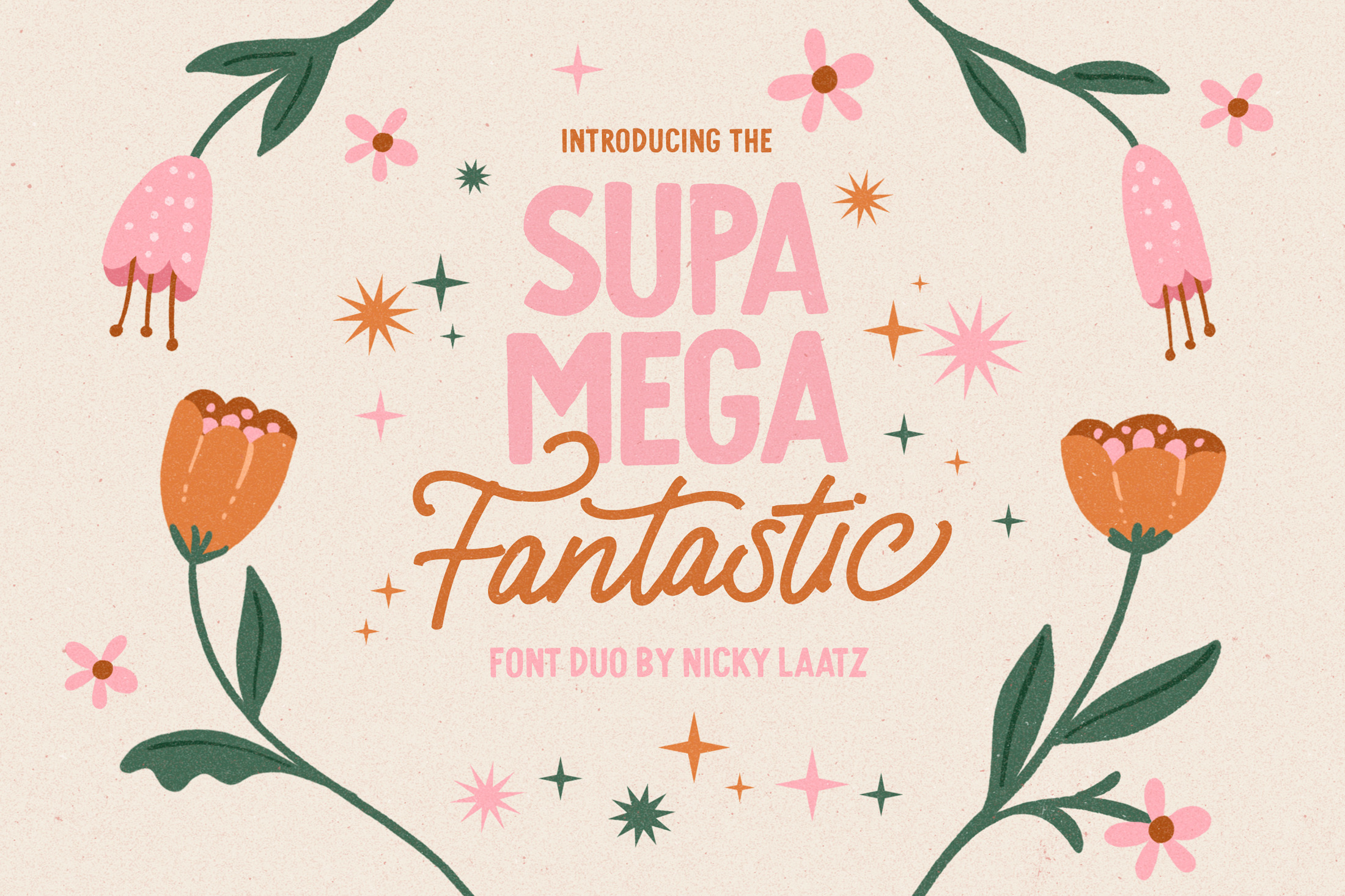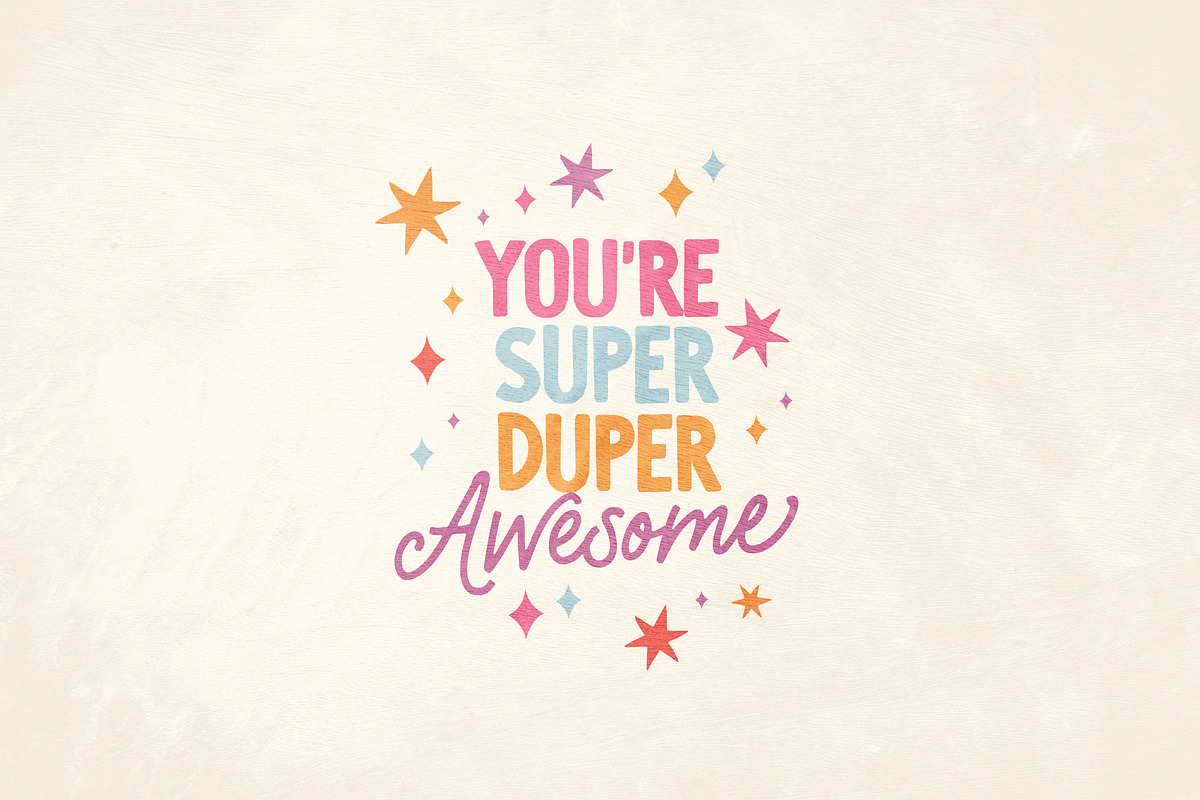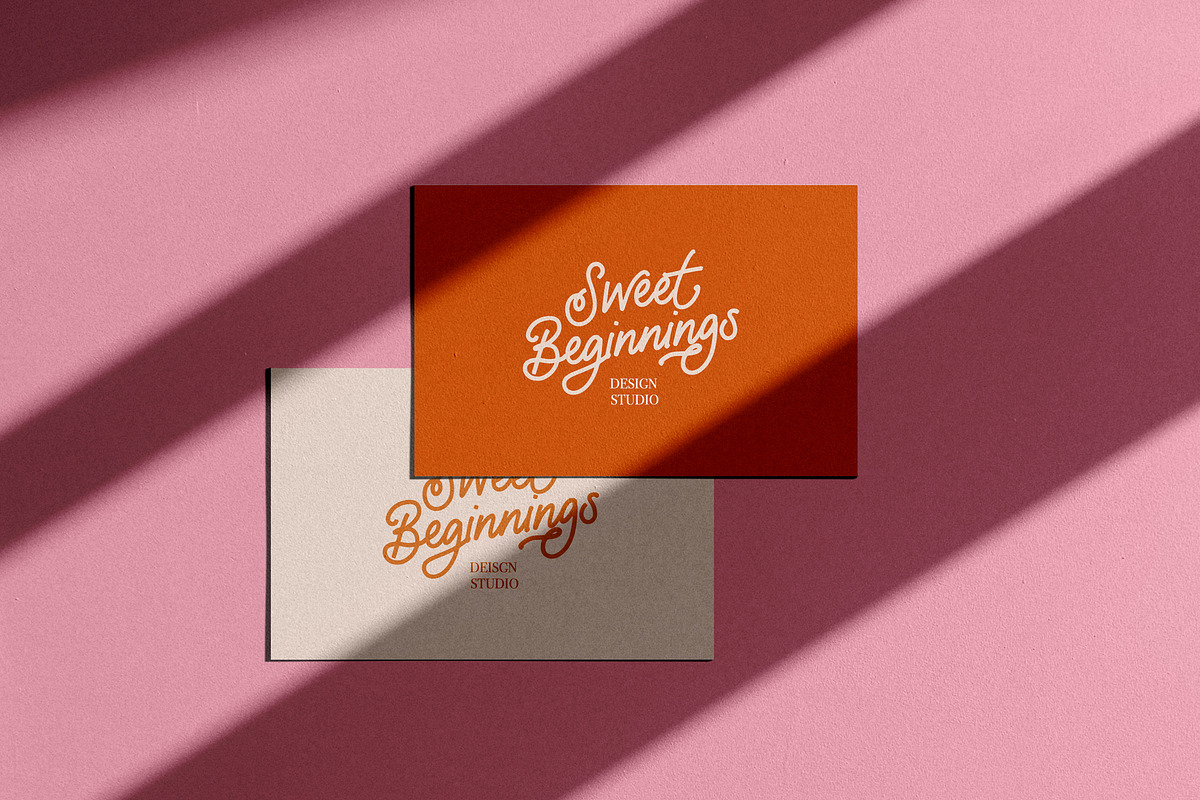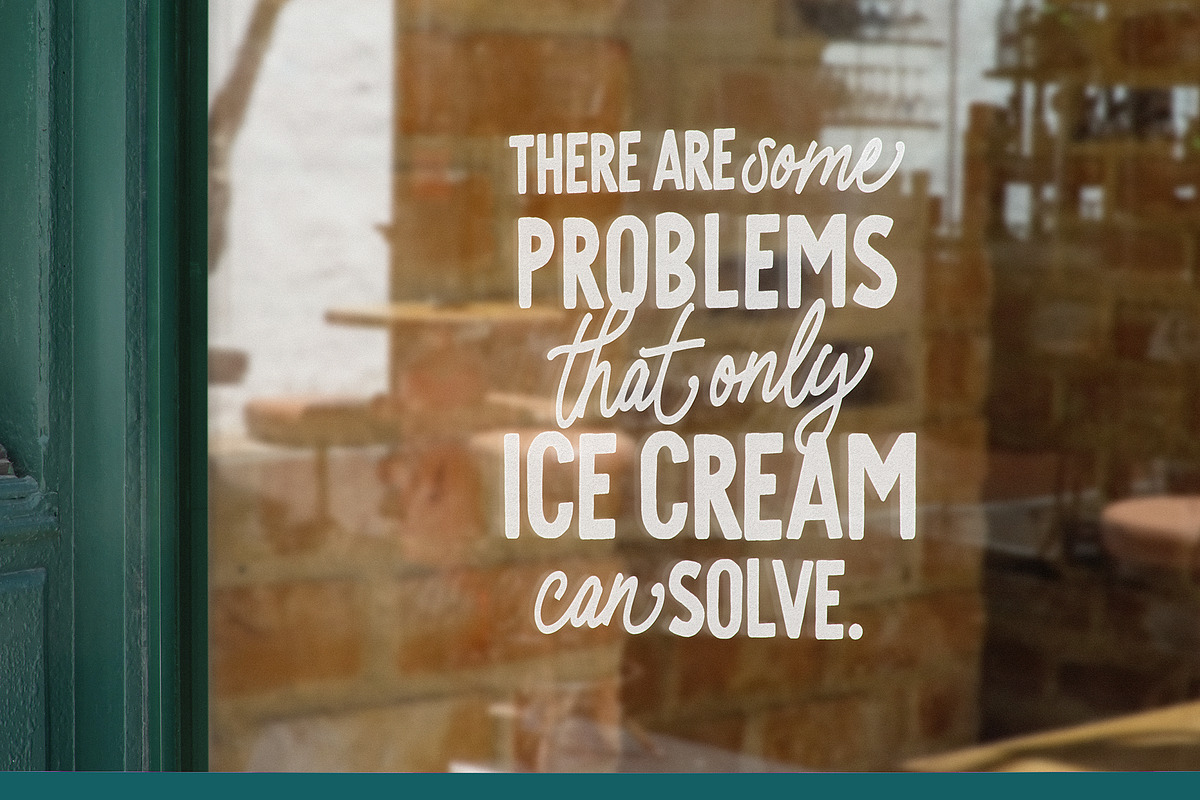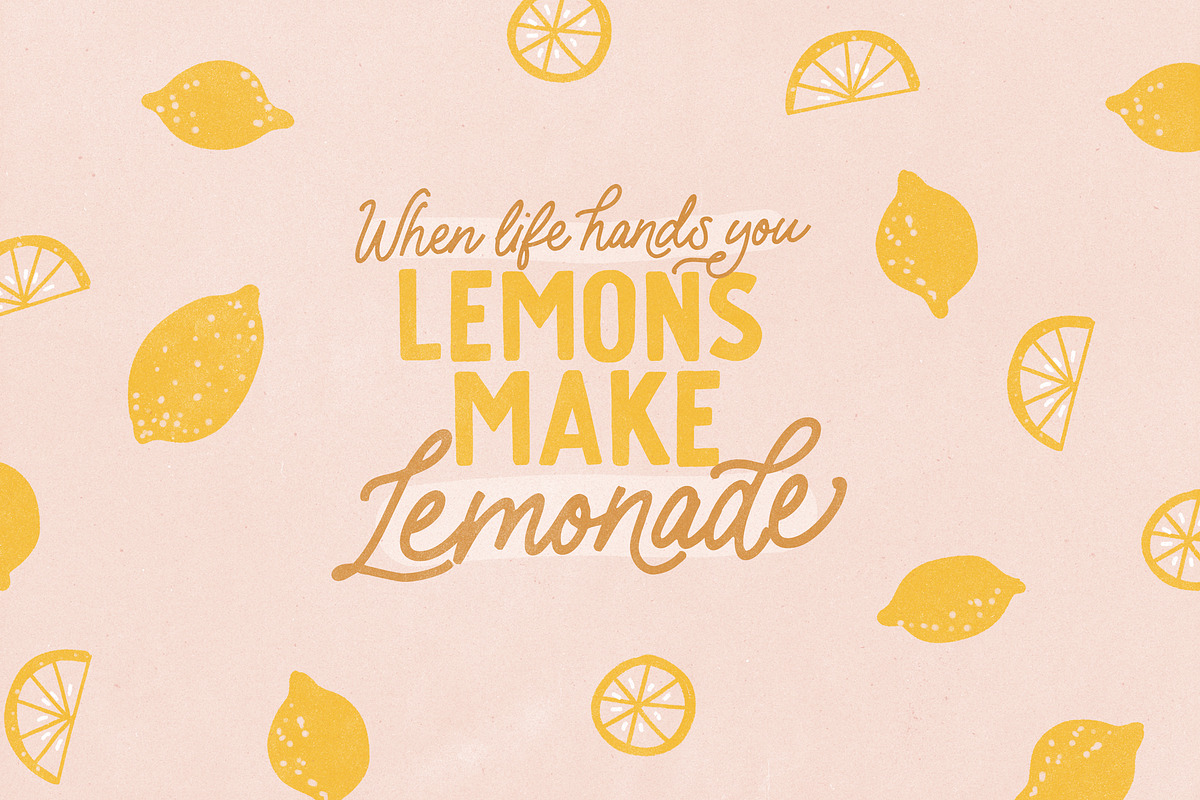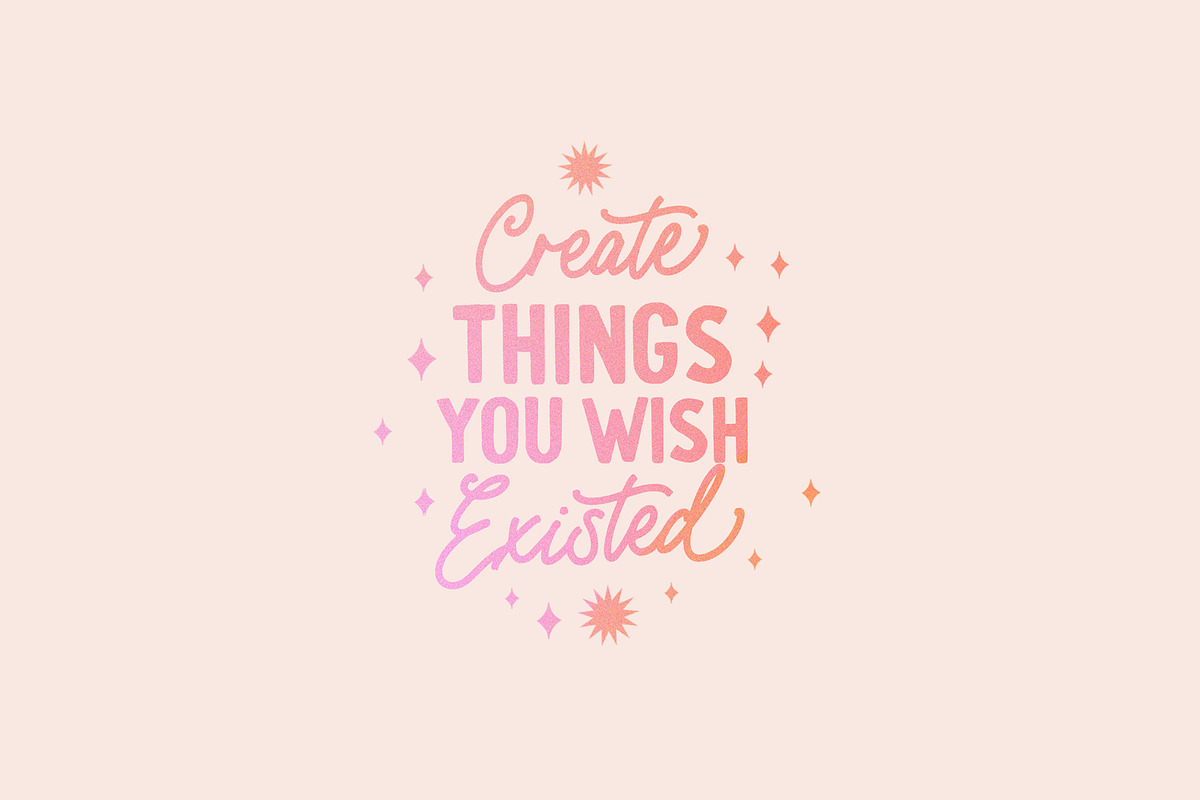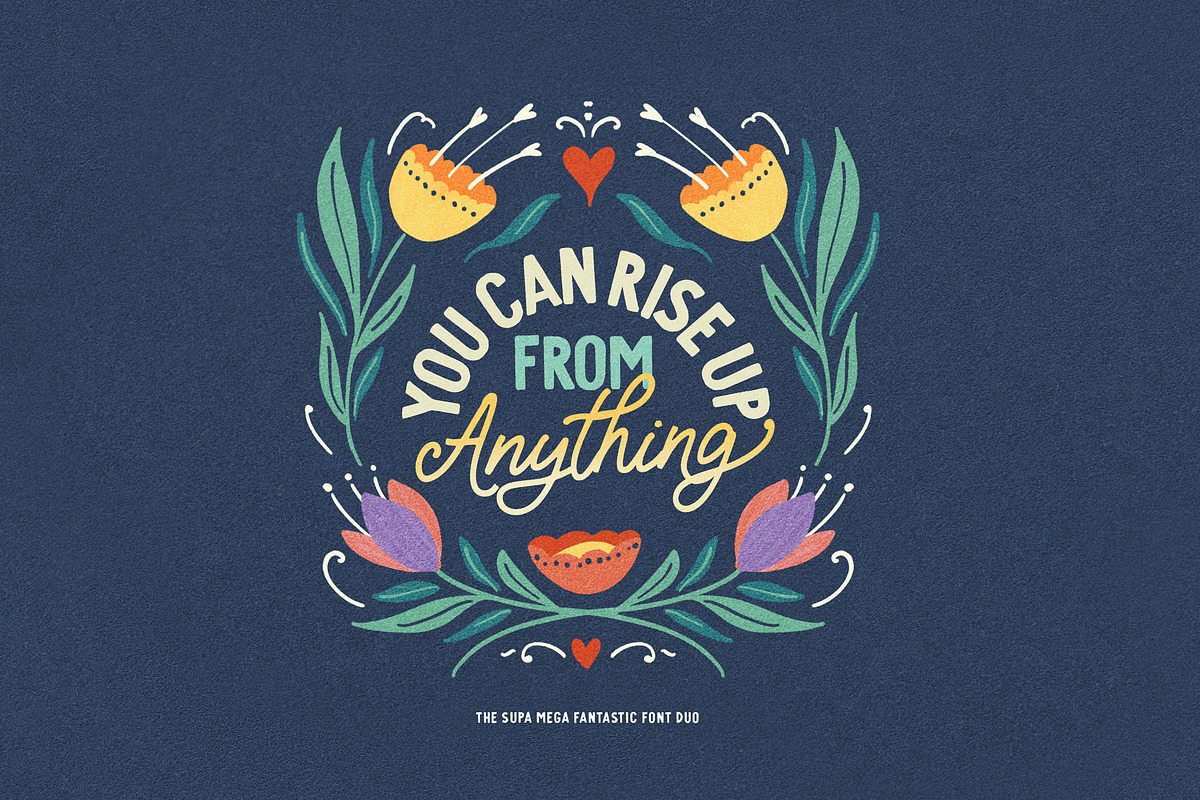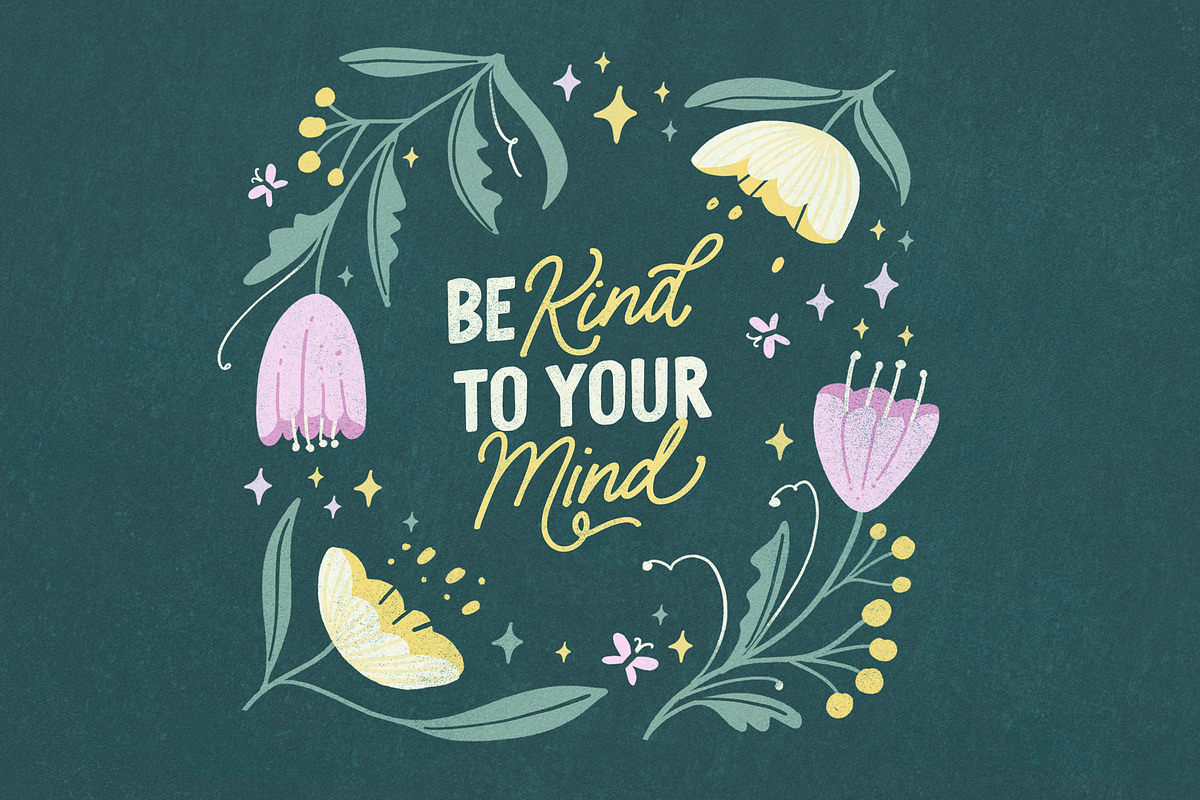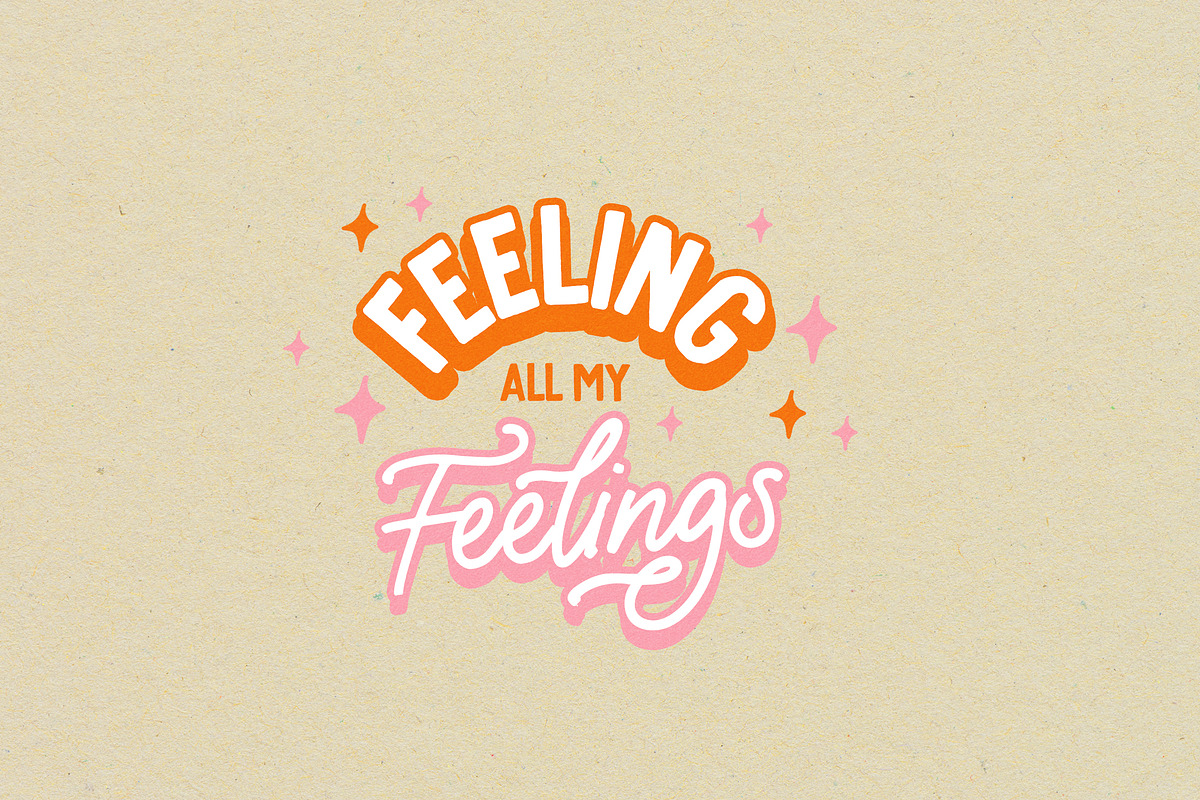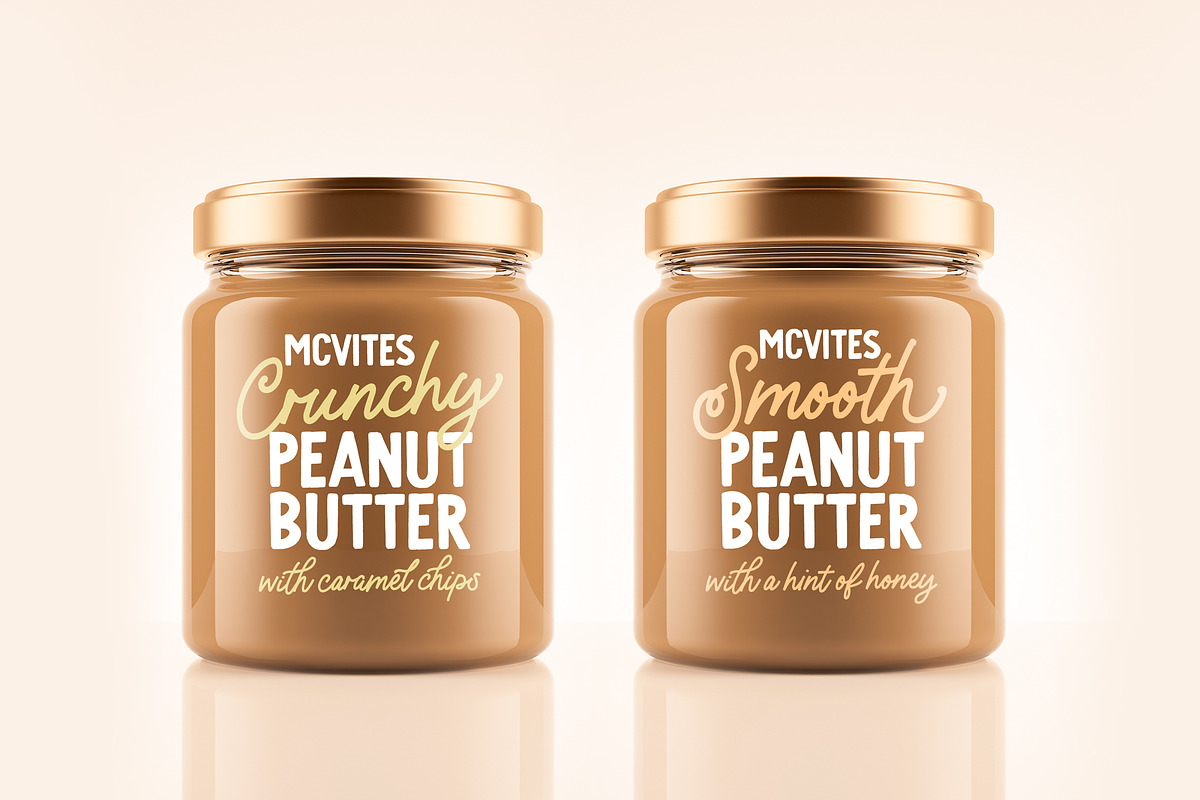
Supa Mega Fantastic Font Duo
Say hello to the Supa Mega Fantastic Font Duo! A sweet little duo of hand lettered sign-painter style fonts. A playful monoline script and a chunky all caps sans serif.
Choc-a-block with alternates! The Supa Mega Fantastic Script comes with a multitude of Opentype alternate characters, to add a fancy flair to your words if you need them! Have it plain, or fancy schmancy :)
All uppercase characters have a fancy alternate, and all lowercase letters have a selection of alternates for you to select from to suit your wording best.
The Script comes in two variants - Regular and slightly thinner. The slightly thinner version is best suited to lighter type on darker backgrounds, and the slightly thicker version is better suited to darker type on lighter backgrounds.
Perfect for playful typography-based branding, greetings , beautiful quotes, fun packaging design, posters, invites and so much more!